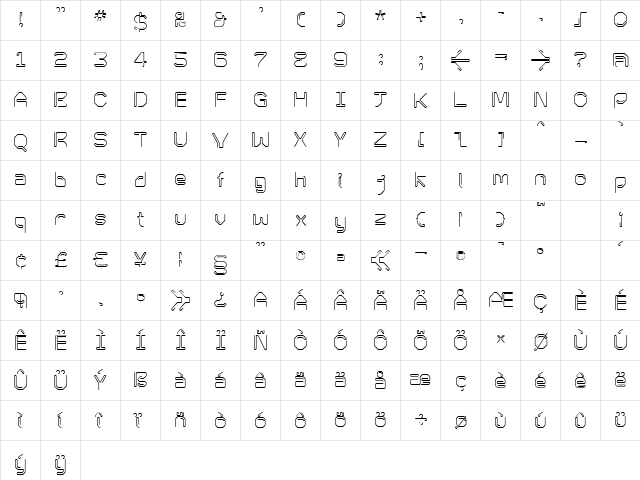
KneeonRegular Regular
Design Context for KneeonRegular Typeface
KneeonRegular offers clean, dependable letterforms without strong stylistic allegiance, making it a practical choice for designers who need flexibility.
Pro Tip: Use KneeonRegular in both headline and body roles to test its range before committing to a single application.